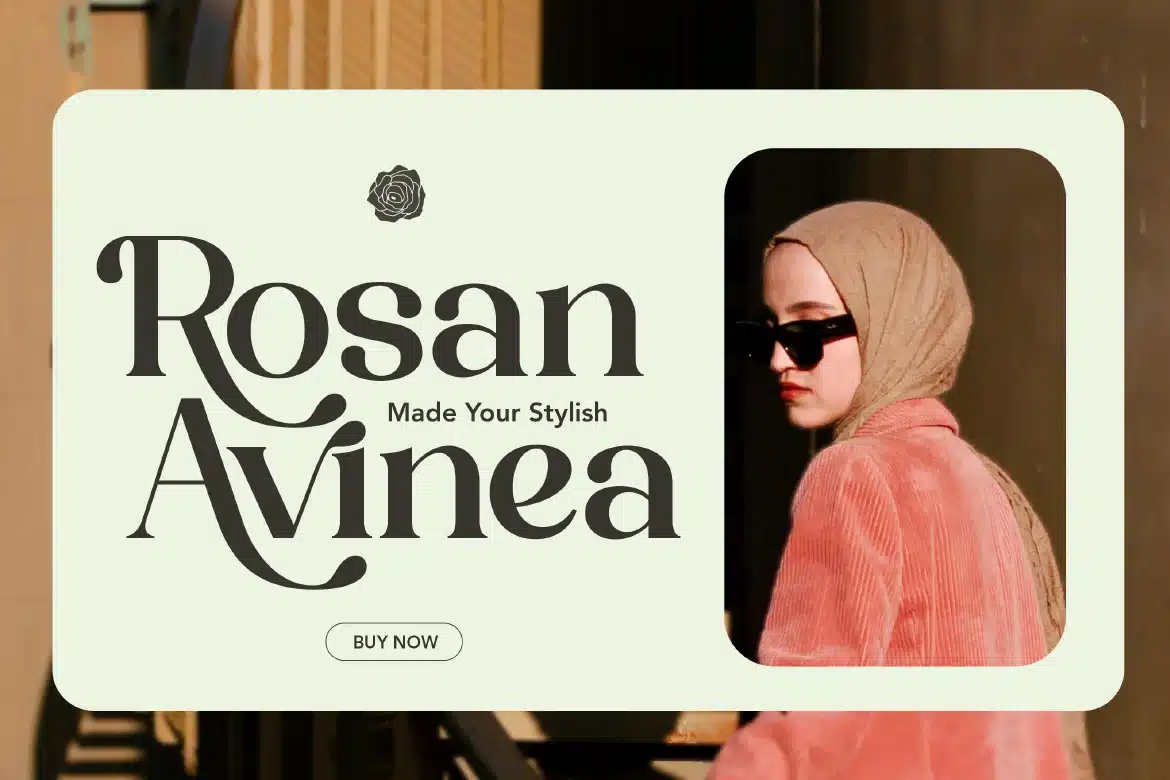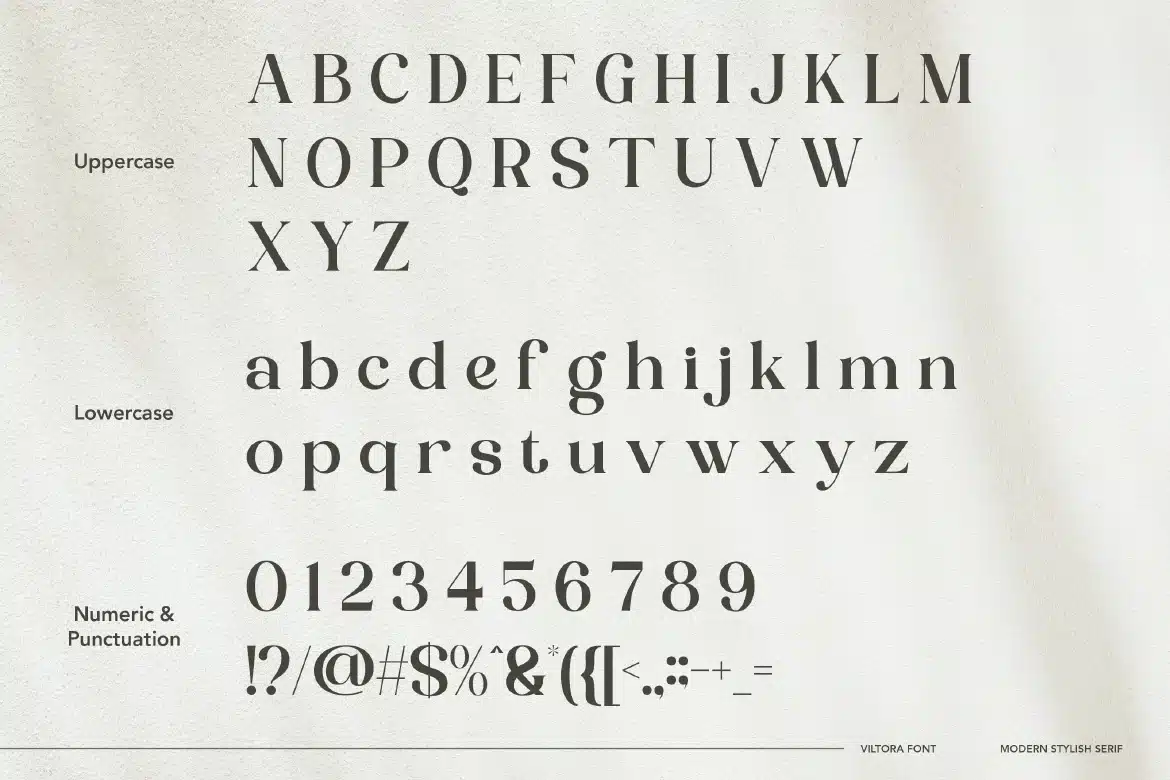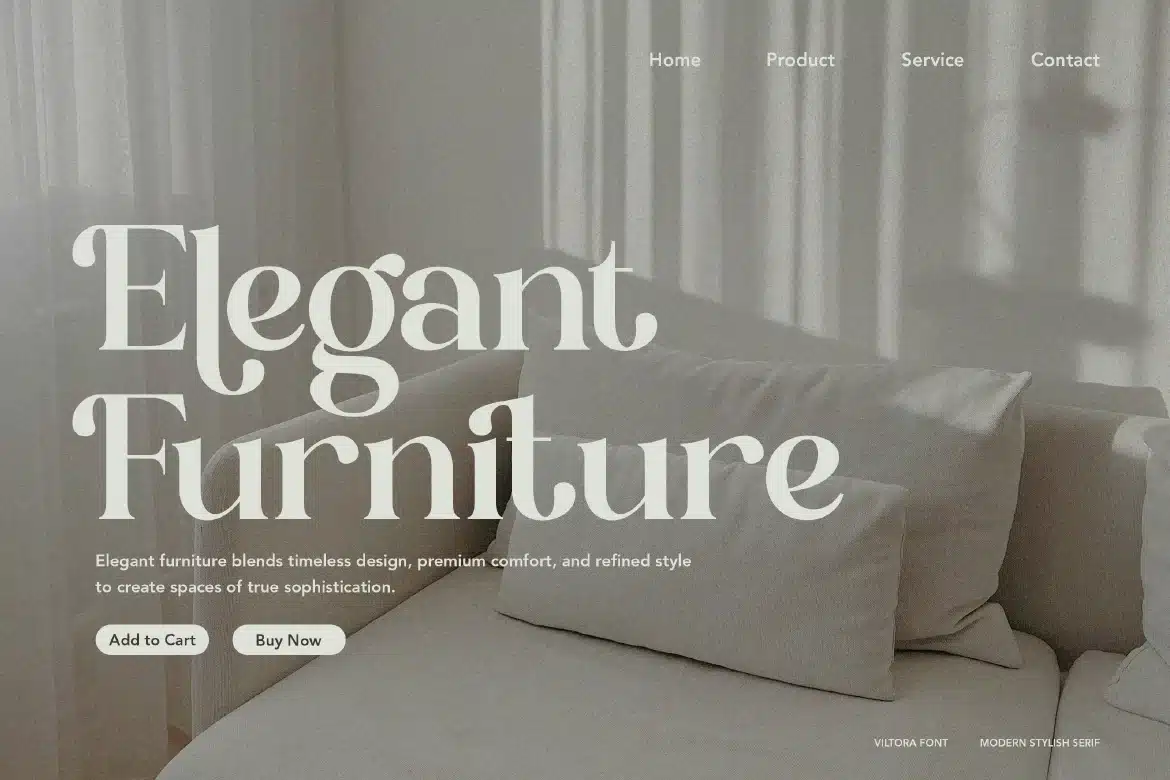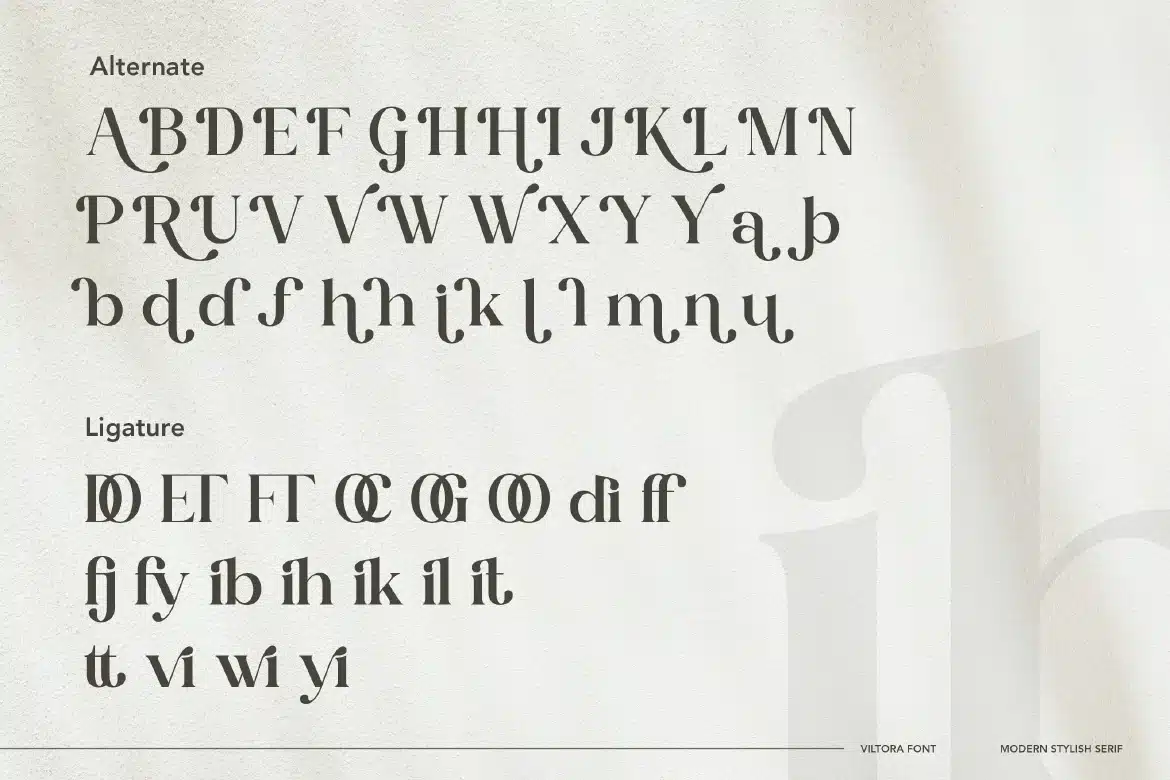
Modern Stylish Serif Font – Viltora
Viltora is a modern stylish serif typeface that blends refined elegance with a contemporary flair. Designed with graceful curves, subtle contrast, and well-balanced proportions, Viltora creates a sophisticated look that feels both timeless and fresh. Its stylish character makes it perfect for high-end designs that require a polished and fashionable touch. Whether used for branding, editorial layouts, or luxury packaging, Viltora delivers a strong visual presence with effortless elegance.
Who Should Use Viltora?
Viltora is ideal for designers, creatives, and brands who want to express modern elegance with a stylish serif approach. It’s especially suited for projects that require a refined, luxurious, and contemporary visual identity.
Luxury branding and identity design
Fashion and beauty projects
Editorial and magazine layouts
Elegant logo design
Packaging and product labels
Social media visuals
Wedding and event design
Stylish typography compositions